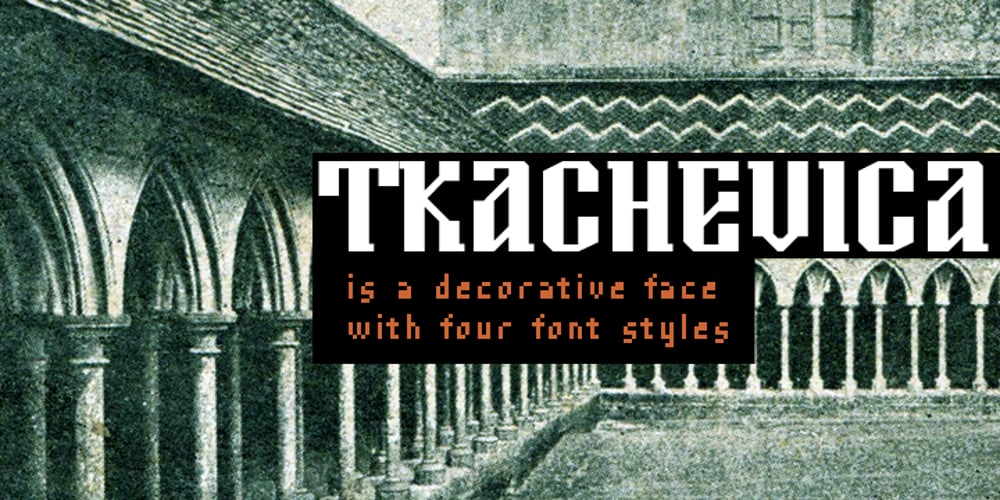
Tkachevica Font Family was designed by Cyrill Tkachev and published by Tkachev. Tkachevica contains 4 styles and family package options. Tkachevica is a decorative face with four font styles. Tkachevica is an experiment to convert the script-style calligraphy into bitmap format. It looks great in display sizes and also works well when used smaller.